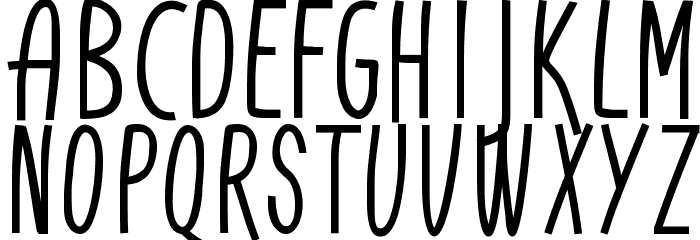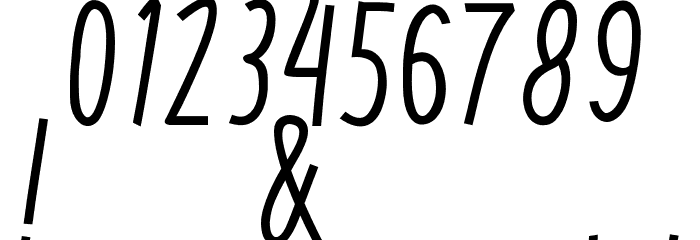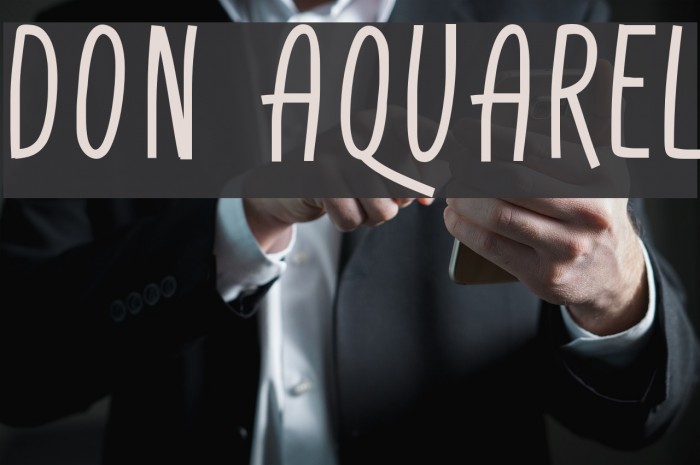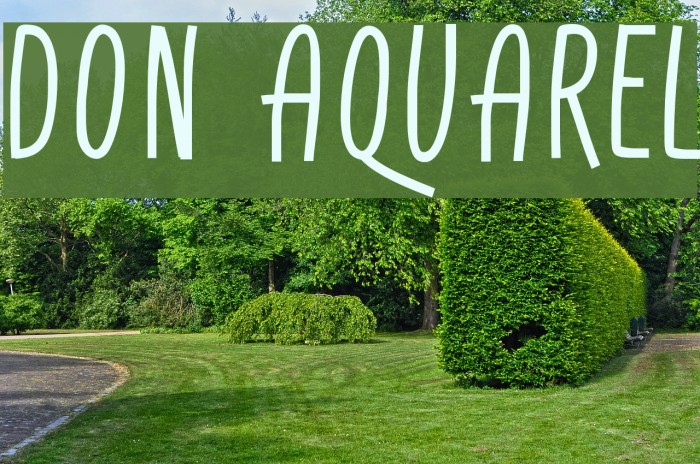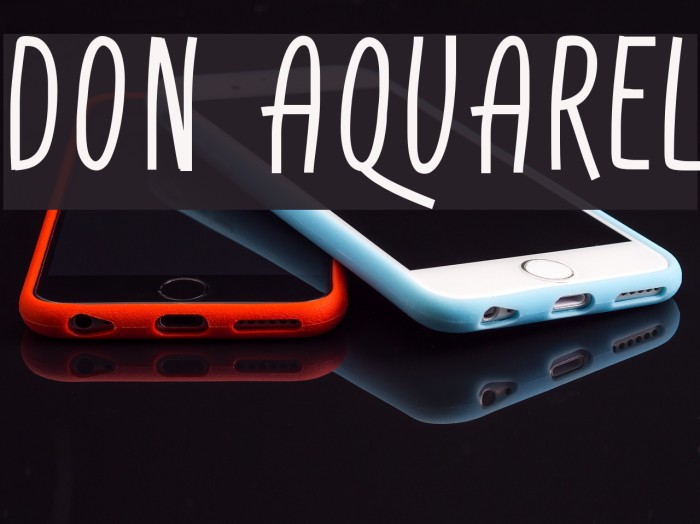
Don Aquarel Font
This font features a playful and artistic style, characterized by its hand-drawn appearance. The letters are tall and narrow, with a slight tilt that adds a dynamic feel. The strokes are consistent in width, giving it a clean and modern look. The uppercase and lowercase letters maintain a cohesive style, while the numerals and special characters complement the overall design. This font exudes a casual and friendly vibe, making it suitable for creative and informal projects.
A playful, hand-drawn font with tall, narrow letters and a dynamic tilt.
- Proposed Projects: Ideal for greeting cards, children's books, creative posters, and branding for artistic ventures.
- Overall Style: Casual, Artistic
- Use Case: Headlines, Creative projects, Informal branding